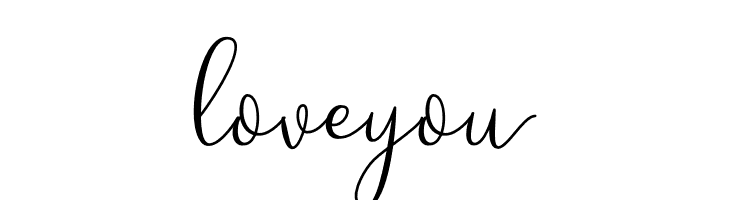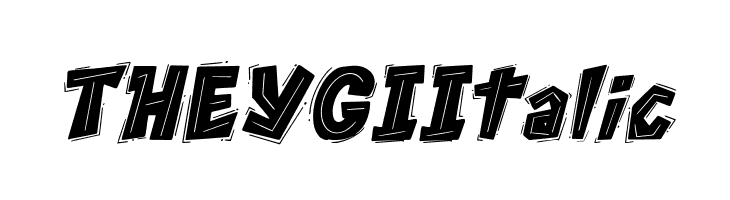
A bold, brush-style font with dynamic, hand-painted strokes.
An elegant and sophisticated cursive font with flowing, ornate letters.
A bold, angular font with a leftward slant, ideal for modern and dynamic designs.
A flowing, cursive script font with elegant curves and a hand-drawn look.
A playful and elegant script font with flowing, connected letterforms.
A bold, geometric font with a futuristic and angular design.
A bold, angular font with a strong, geometric style.
A bold, three-dimensional font with geometric and abstract elements.
A playful, hand-drawn font with a whimsical and friendly style.
A bold, retro font with a double line effect and angular edges.